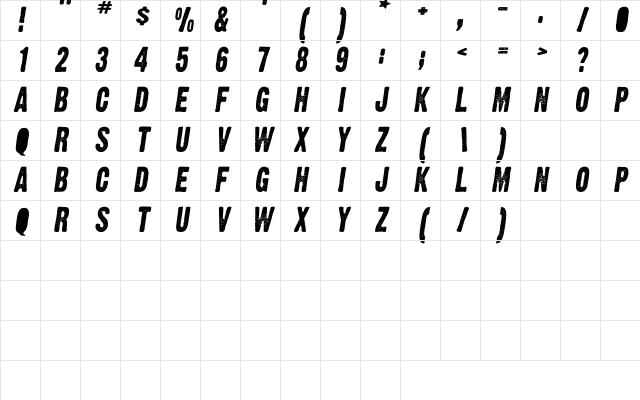
Complete TenYearLie Regular glyph index. Displaying only characters natively supported by TenYearLie Regular font.
TenYearLie is a composed and adaptable typeface that performs quietly and consistently across a wide range of design contexts.